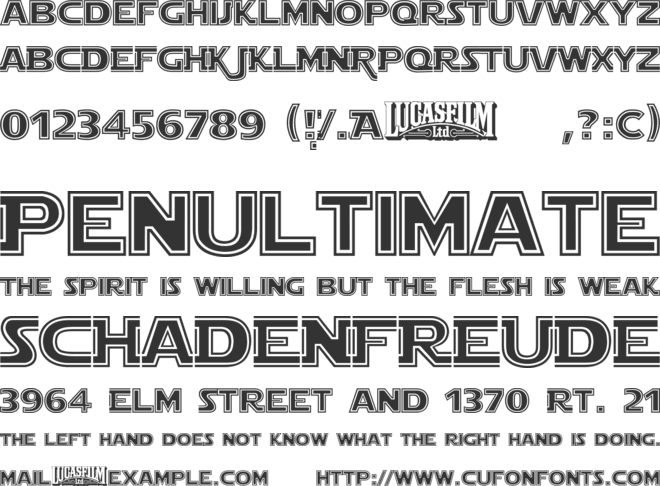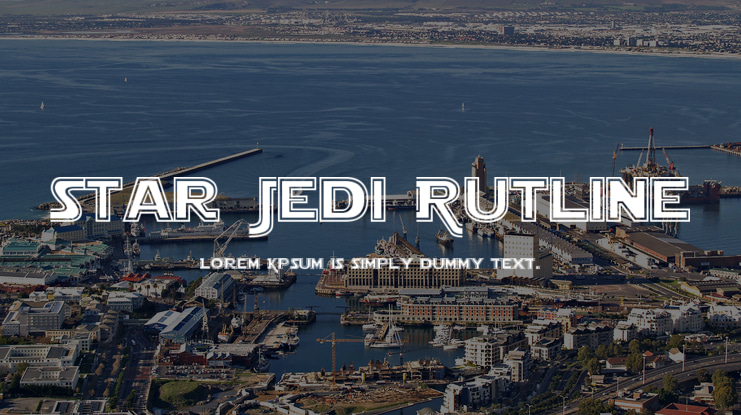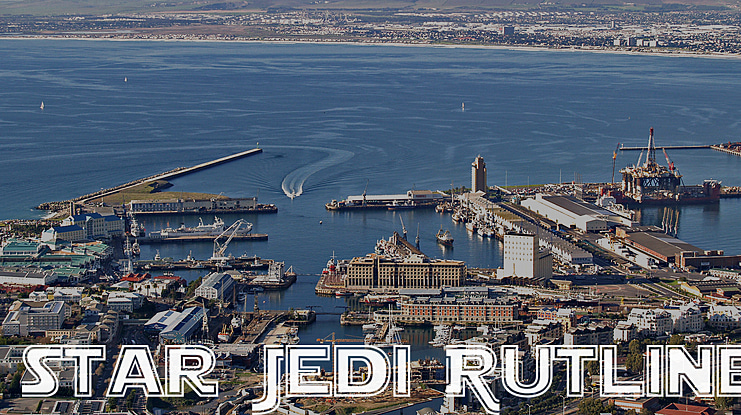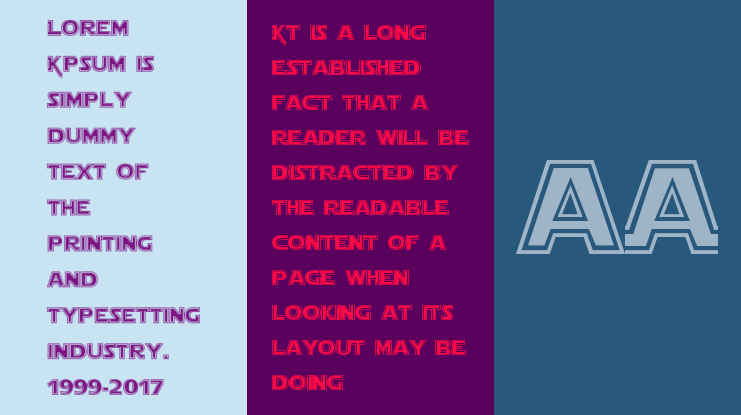
Star Jedi Outline Font
Star Jedi Outline is a titling (capitals only) font, with a lot of variations and connections. Refer to the main Star Jedi for details. SJ Outline is also fully compatible with the Logo series: it can be framed in the logo lines and used with the various logo pieces.
Star Jedi Outline is an outlined variant of Star Jedi, different from SJ Hollow